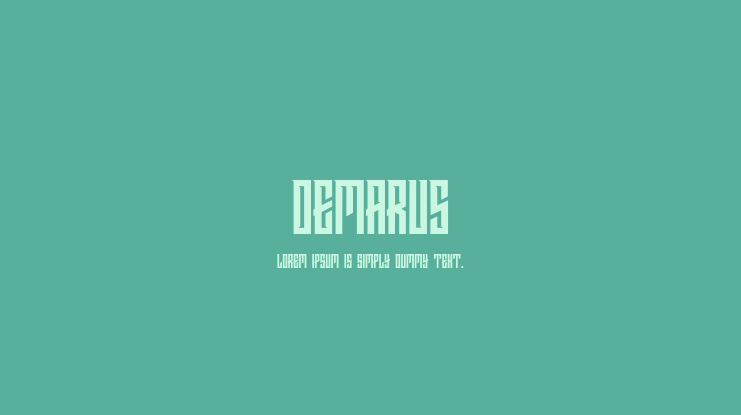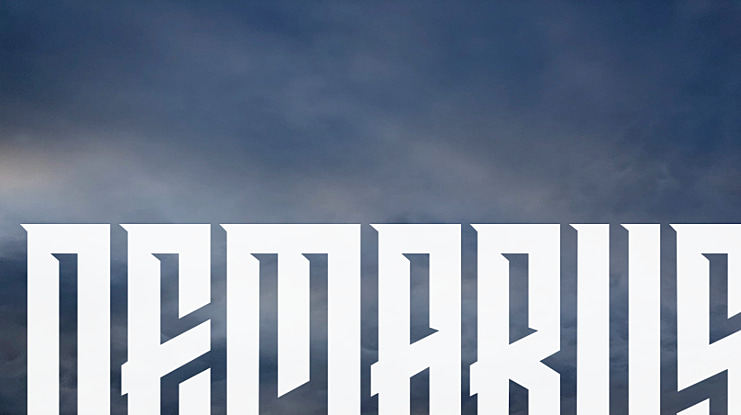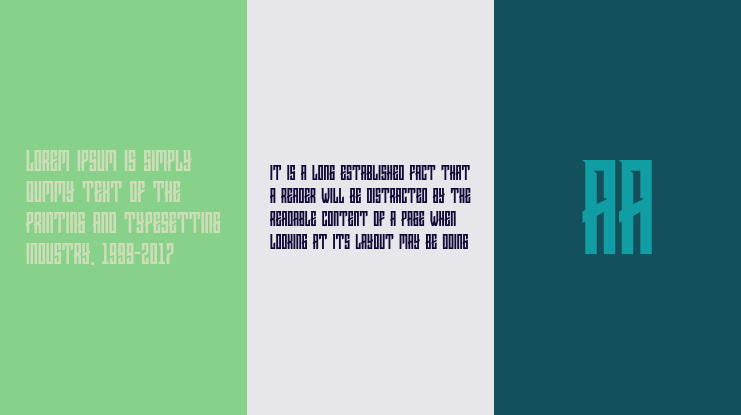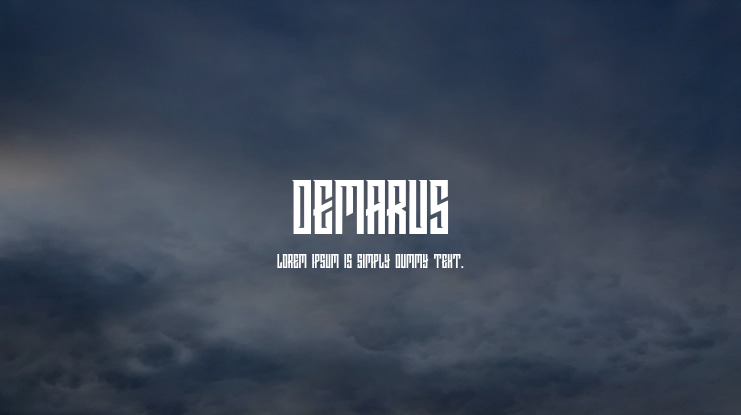
DEMARUS originally designed for use in e-Sports related projects, logotype, quotes, wordmark, magazine, t shirt etc. The downloadable file contains the font in ttf,